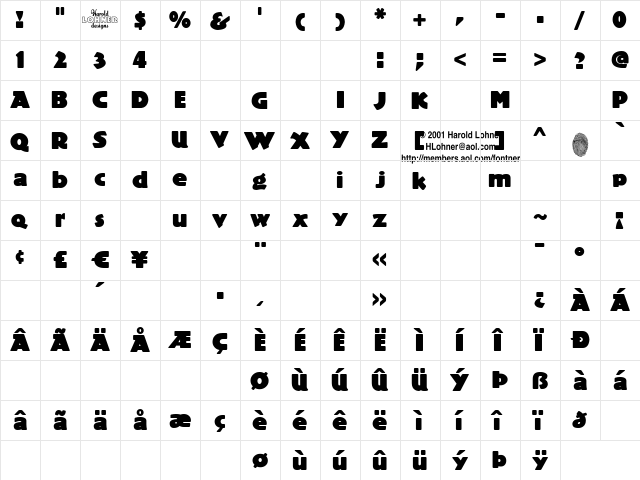
Pub Smooth Demo
Design Context for Pub Smooth Typeface
Pub Smooth offers clean, dependable letterforms without strong stylistic allegiance, making it a practical choice for designers who need flexibility.
Pro Tip: Pair Pub Smooth with a font of contrasting weight or personality to build a more expressive typographic hierarchy.